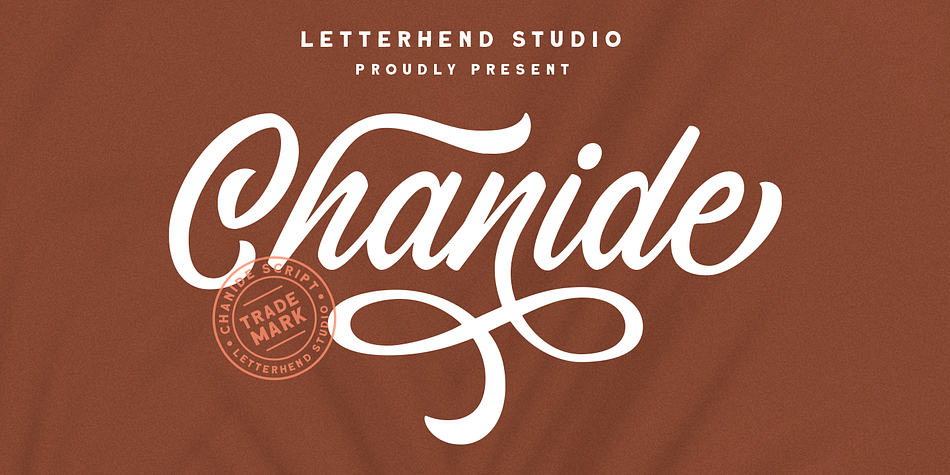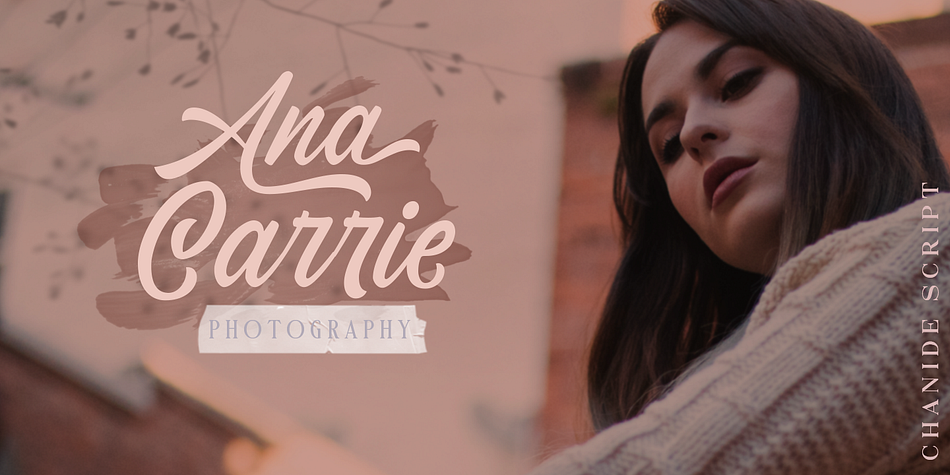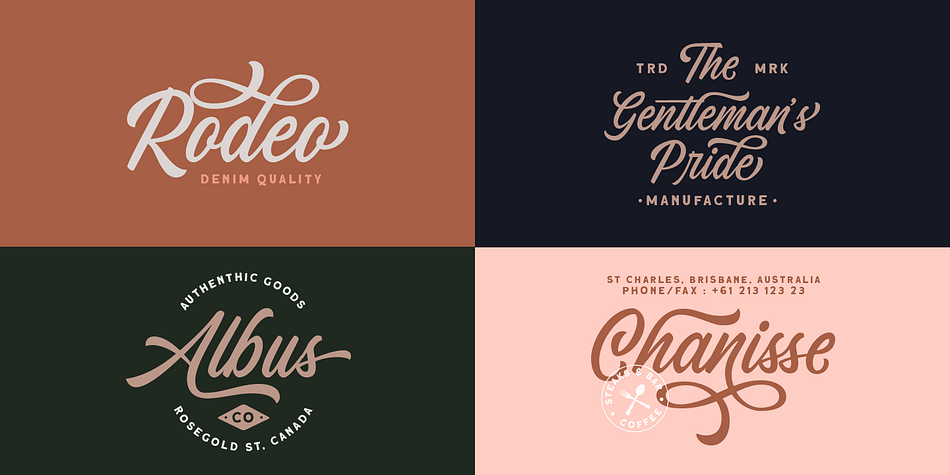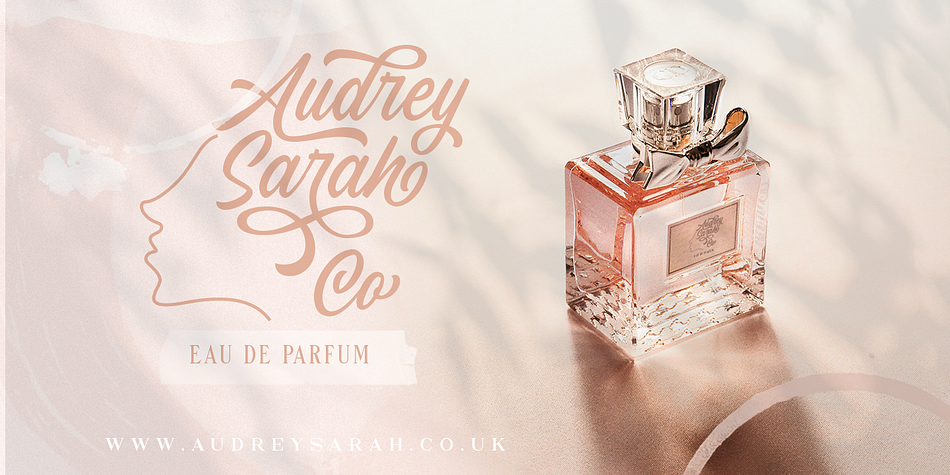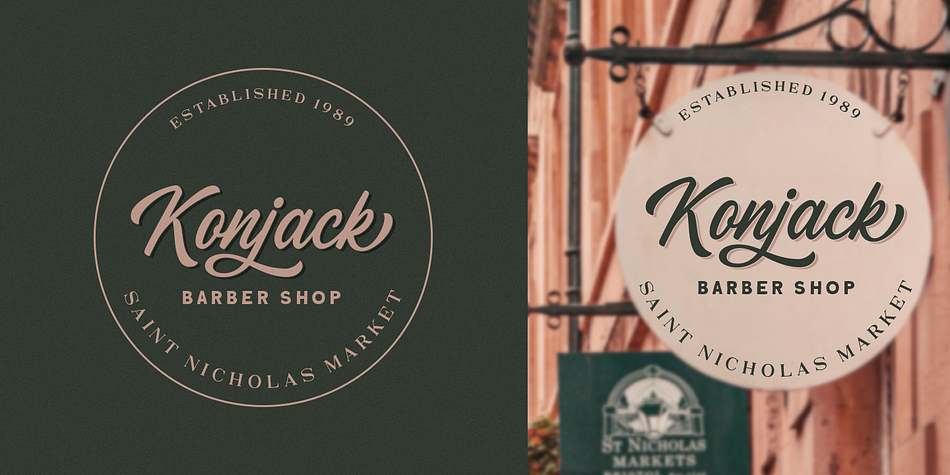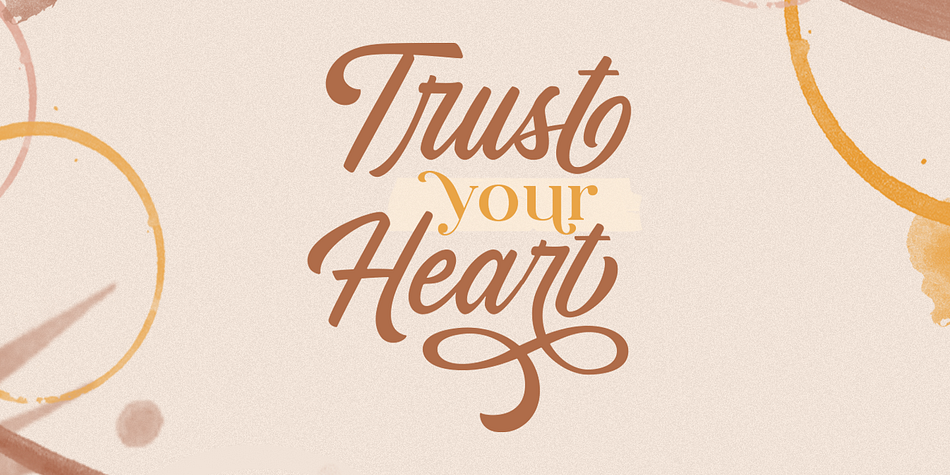
Designed by Hendry Juanda, Chanide is a brush script, retro and script font published by Letterhend Studio.
Please welcome our newest script typeface, Chanide. As you can see at the previews, this typeface has unique swashes that allows you to create beautiful lettering in a snap! it has many stylistic set alternates that you can choose from.
This font perfectly made to be applied especially in logo, and the other various formal forms such as invitations, labels, logos, magazines, books, greeting / wedding cards, packaging, fashion, make up, stationery, novels, labels or any type of advertising purpose.
uppercase & lowercase
numbers and punctuation
multilingual
ligatures
alternates
swashes